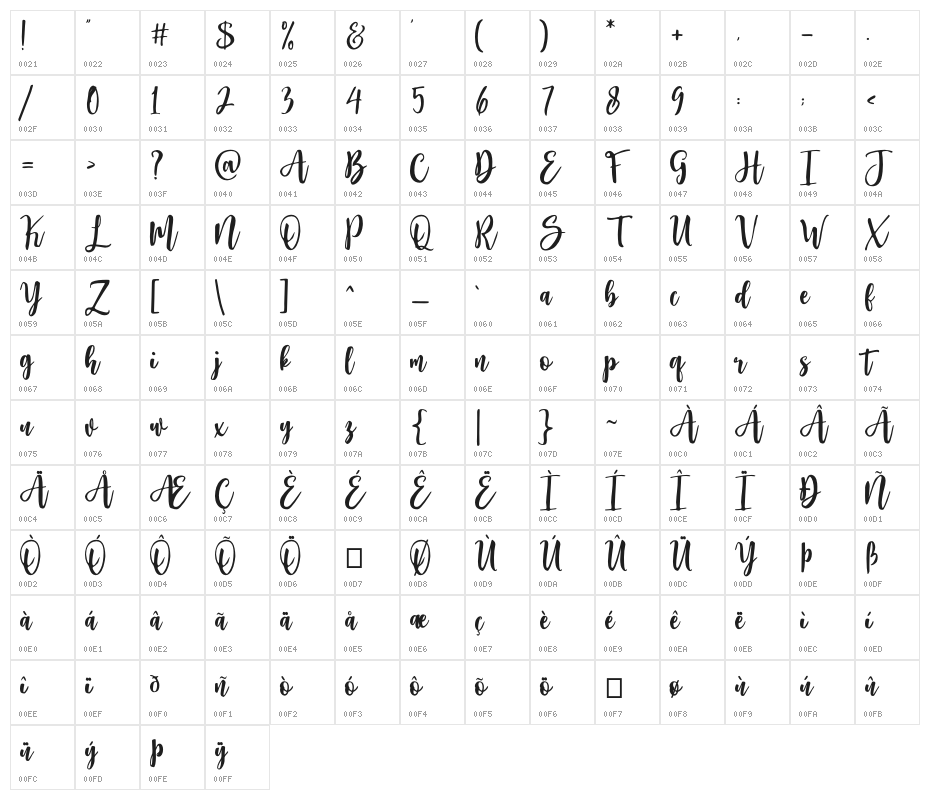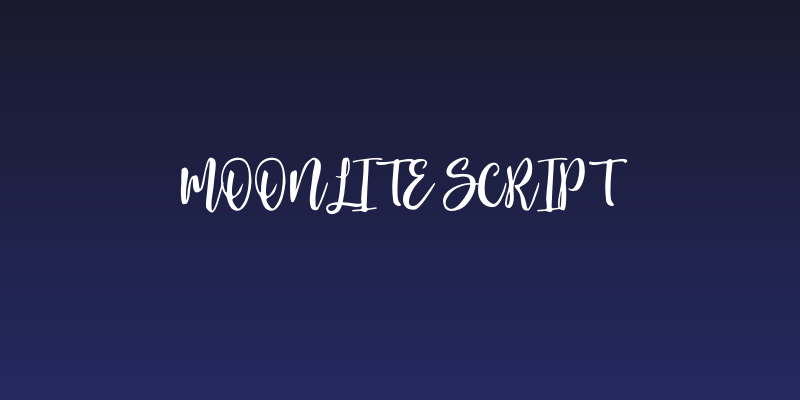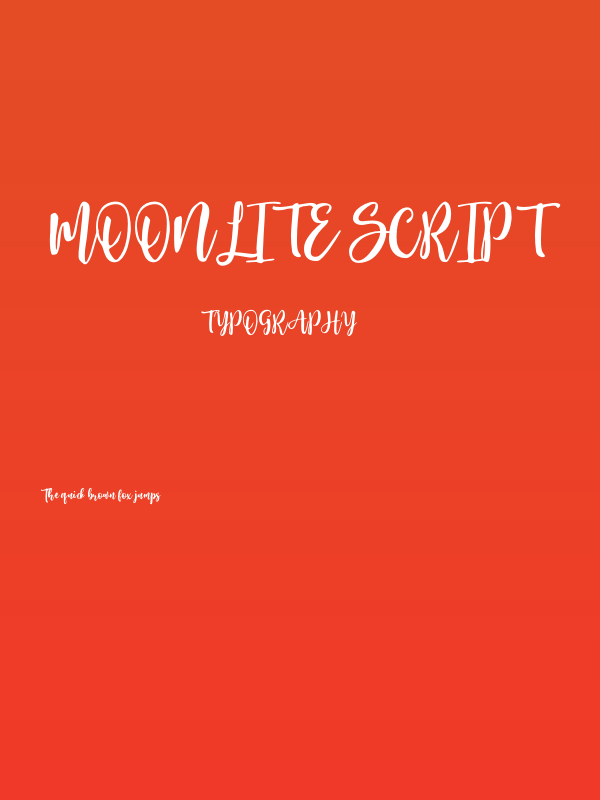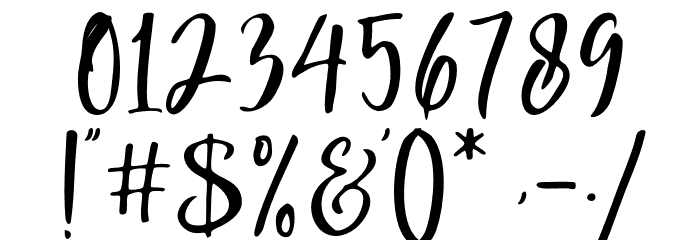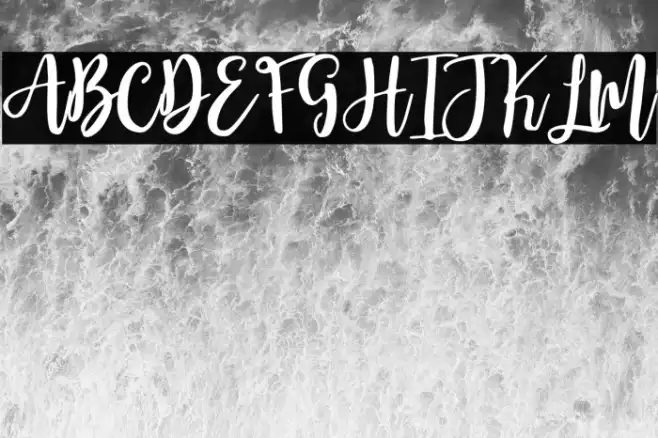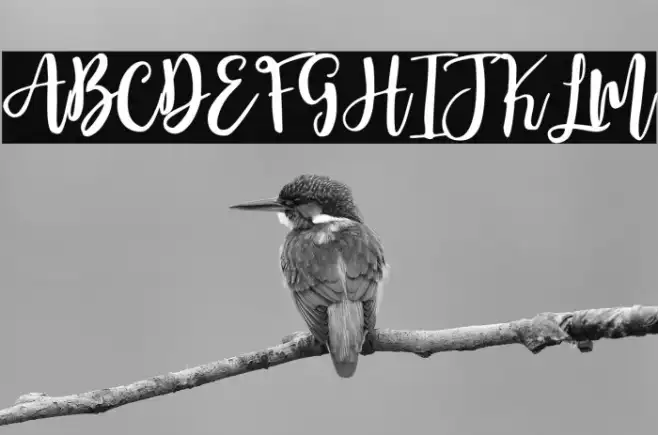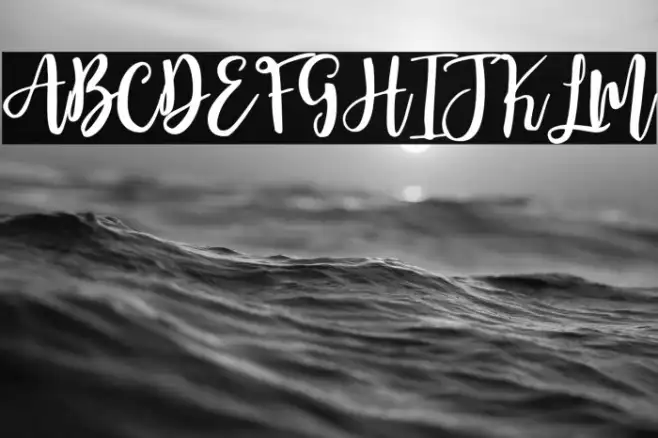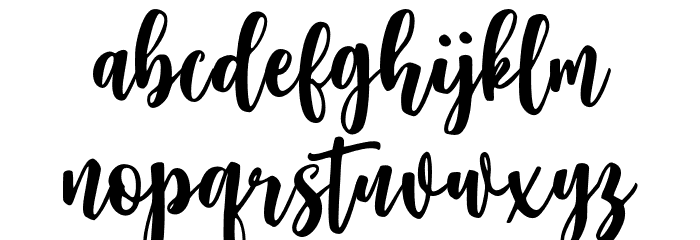
Moonlite Script Font
Moonlite Script Description
This font features a lively and flowing script style, characterized by its elegant and fluid letterforms. The uppercase letters are bold and expressive, with a playful yet sophisticated appearance. The lowercase letters maintain a consistent rhythm, enhancing readability while retaining a handwritten charm. Numbers and special characters are crafted with the same attention to detail, ensuring a cohesive look across all text. The strokes vary in thickness, adding a dynamic quality to the overall design. This font exudes a sense of creativity and warmth, making it ideal for projects that require a personal touch.
| Use Case | Logos, Invitations, Creative projects |
| Proposed Projects | Ideal for wedding invitations, greeting cards, branding, and creative projects that require a personal and artistic touch. |